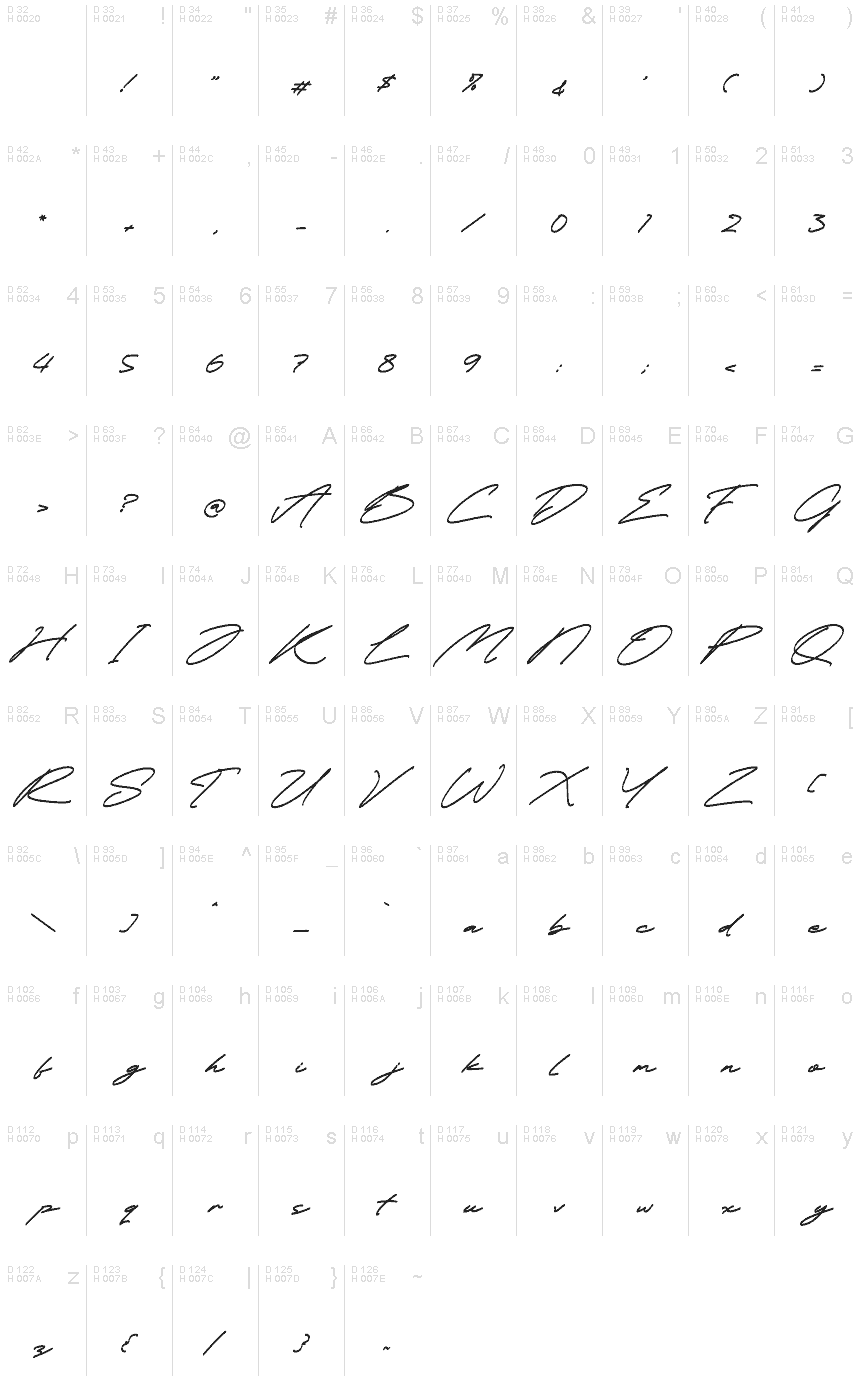
Lindstaye
Lindstaye font by Letterena Studios is a free handwritten font with a signature style known for its light strokes and casual elegance. The expressive letters add a modern feel while conveying a personal touch that matches the style beloved for creating initials, logos, and posters.
Use Lindstaye in your branding projects, typography art, product packaging and label designs. It also looks good in social media posts including Facebook or Instagram stories. Of course, it can be used in advertising projects, web UI designs, magazines as well as invitations – wedding ones included.